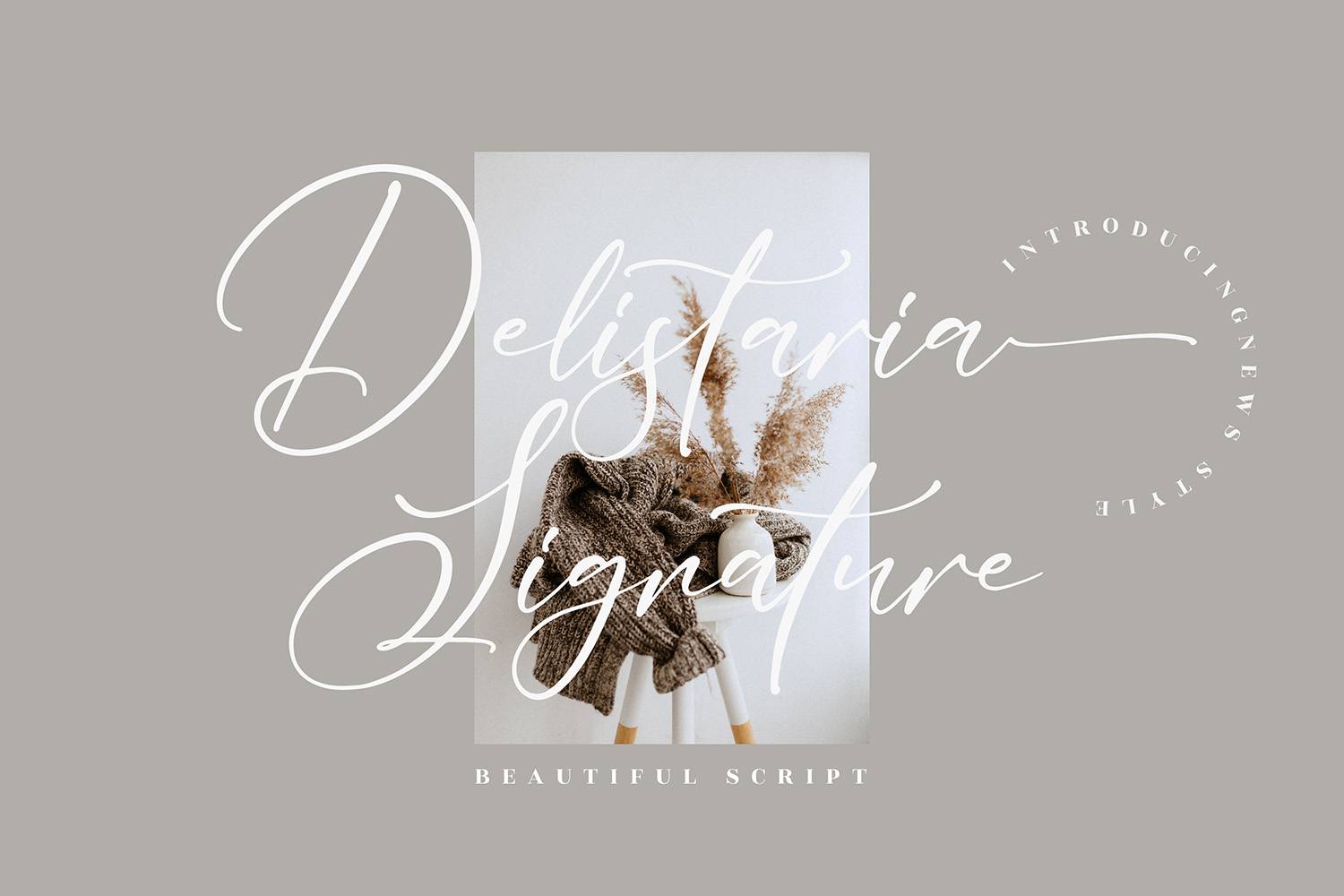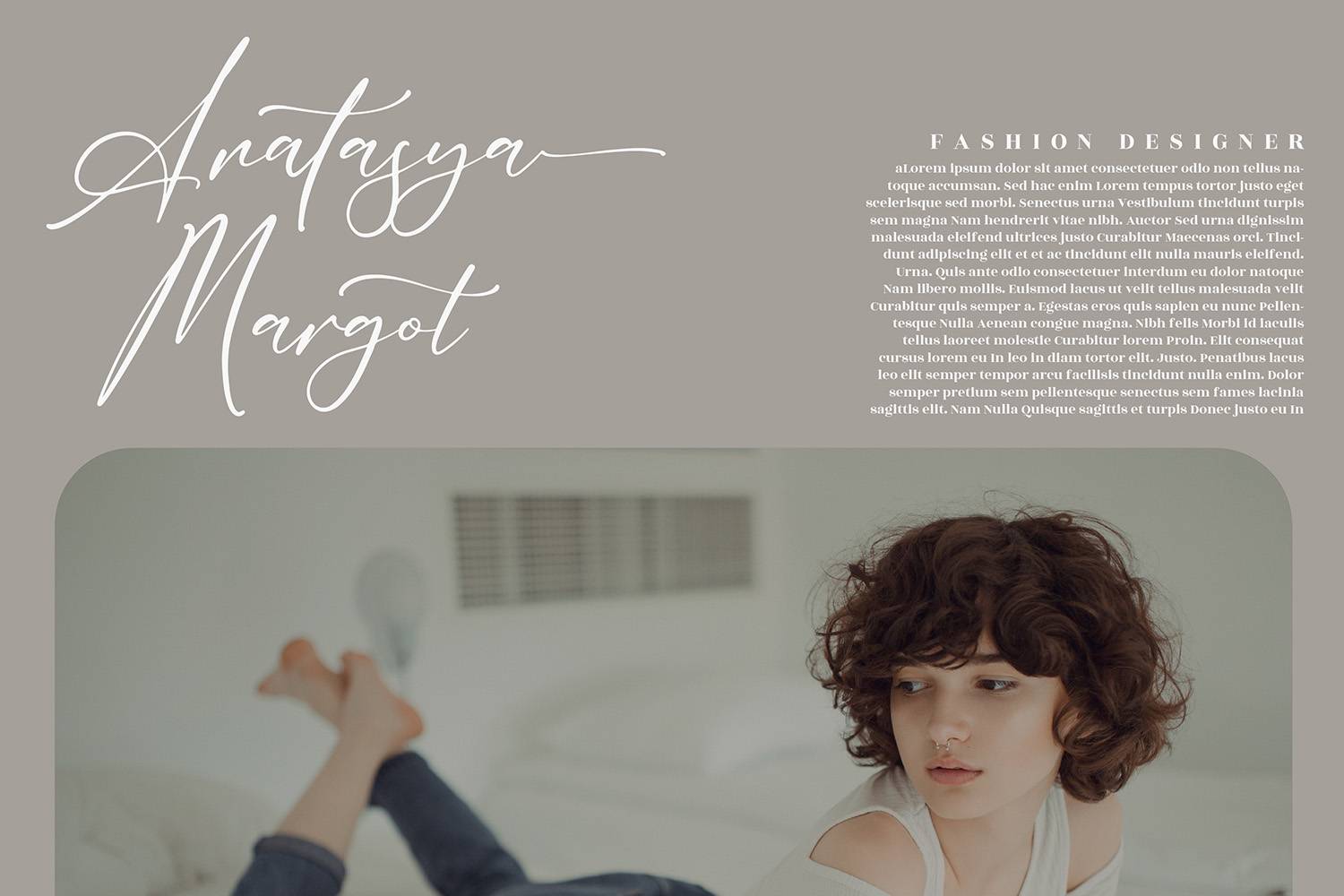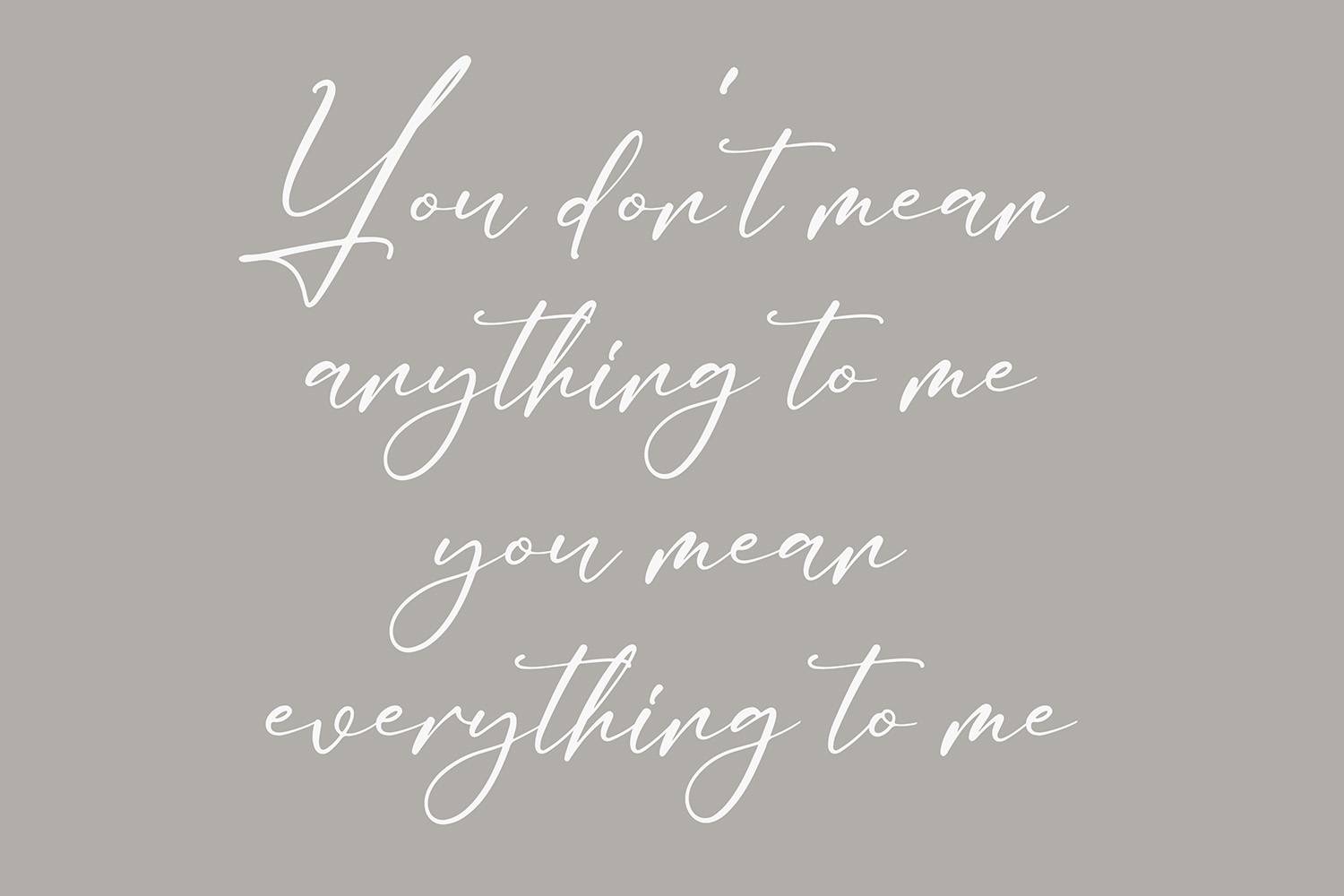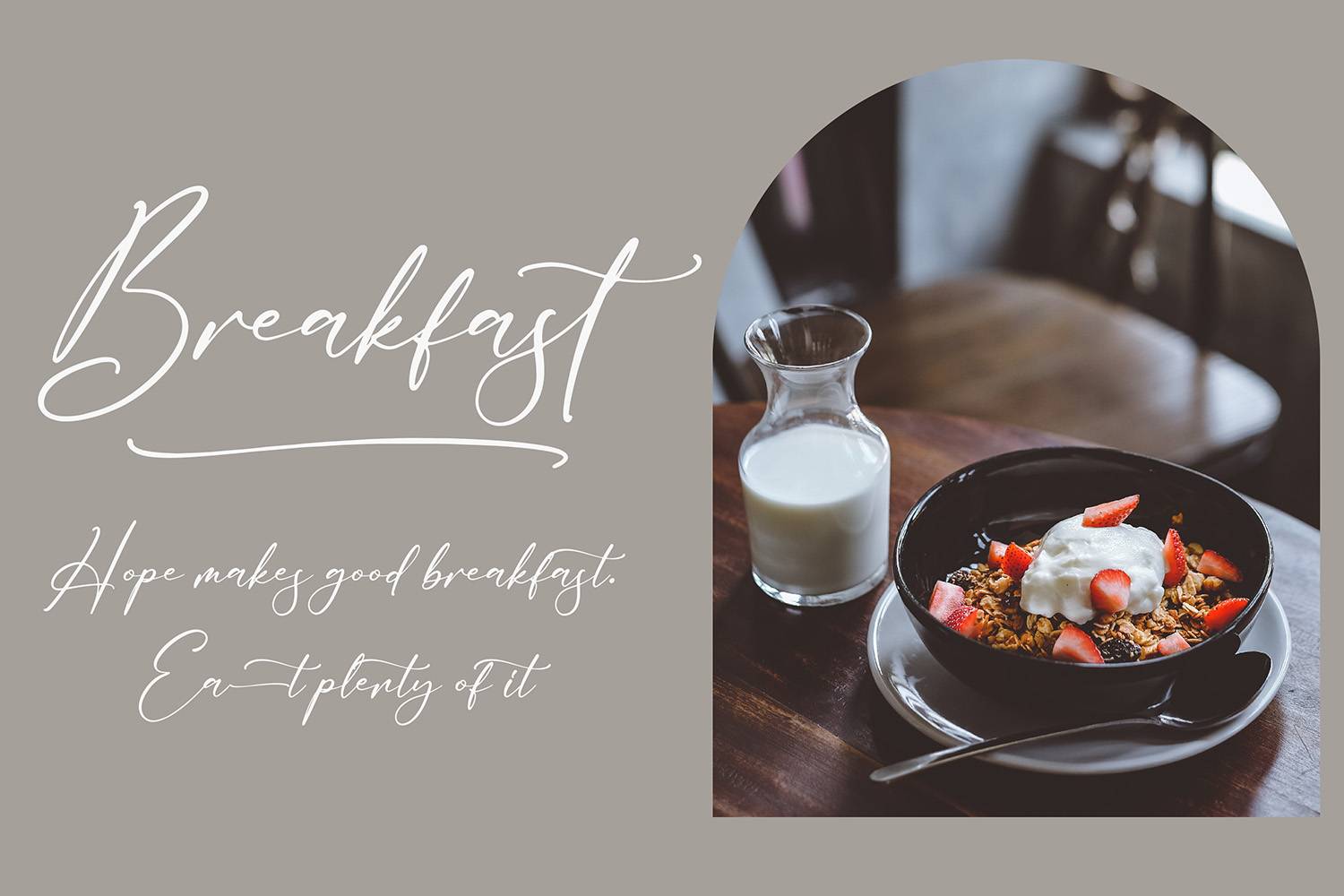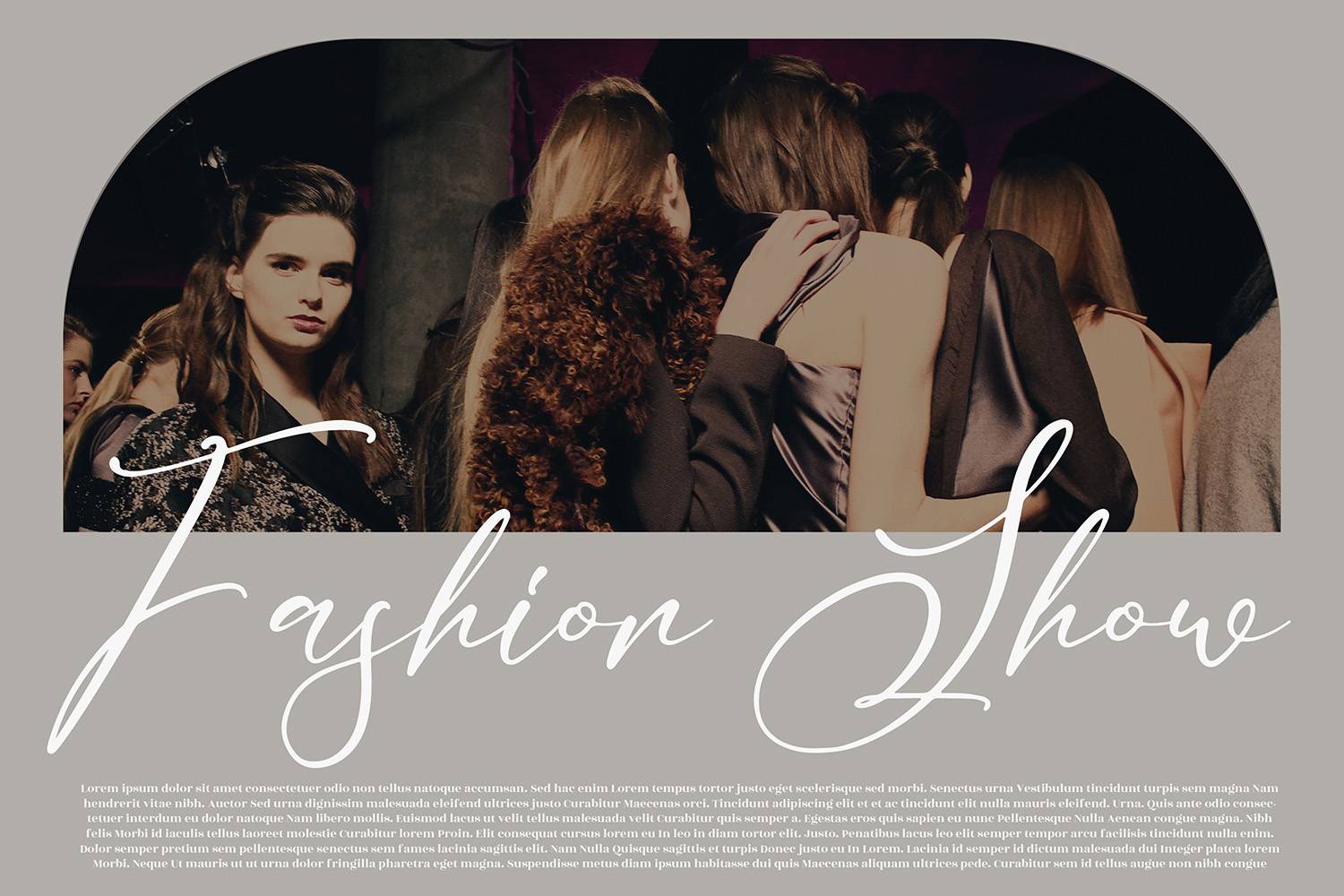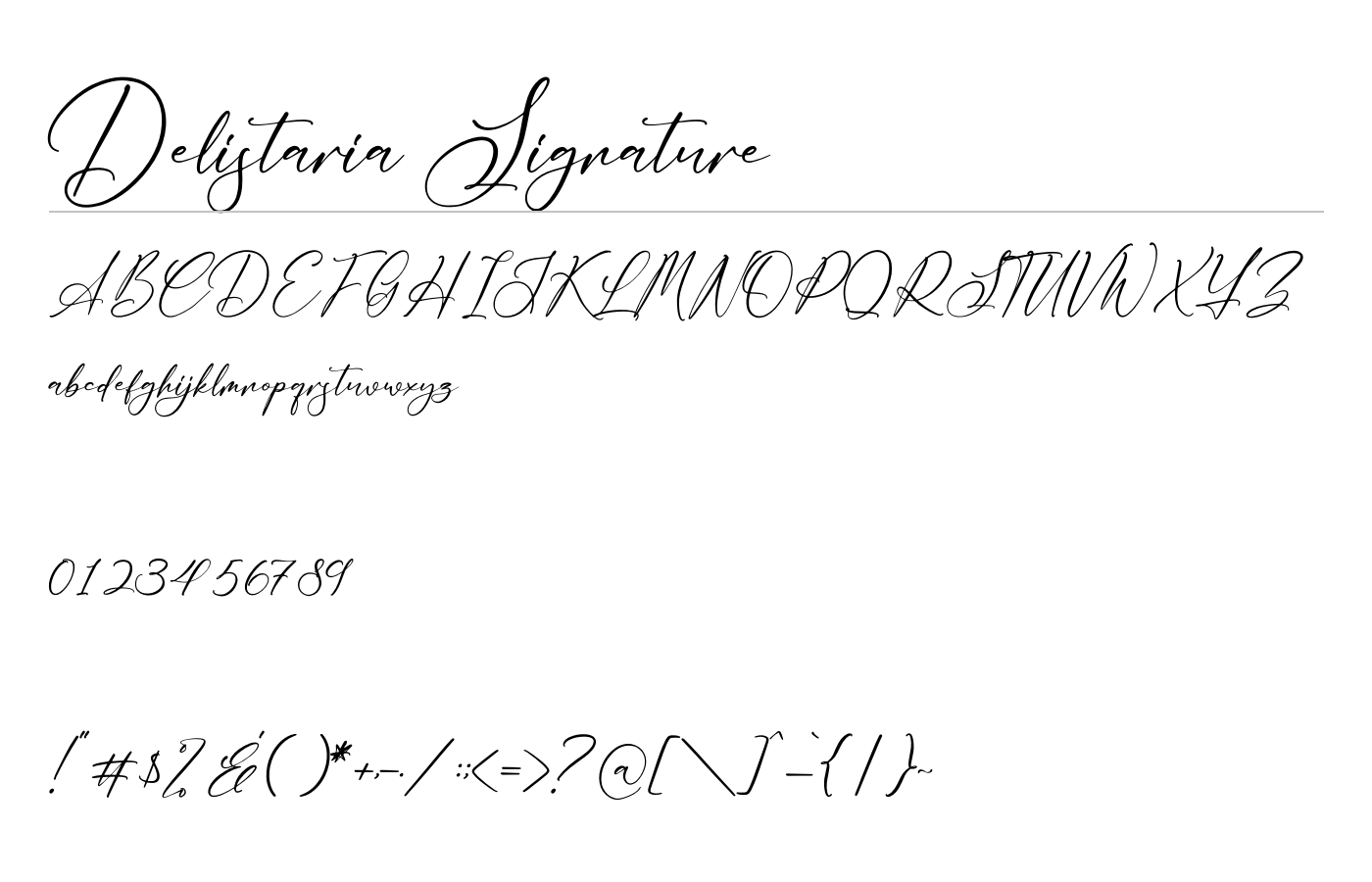
Delistaria Signature is an elegant, delicate script font that mimics graceful, flowing handwriting with fine, slender strokes and a natural, personal touch. Its light weight and airy spacing make it perfect for sophisticated branding, wedding invitations, or fashion-related designs where a refined, romantic mood is desired. This font shines in logos and decorative headlines that need a stylish and intimate feel.
Delistaria Signature Font
About Delistaria Signature Font